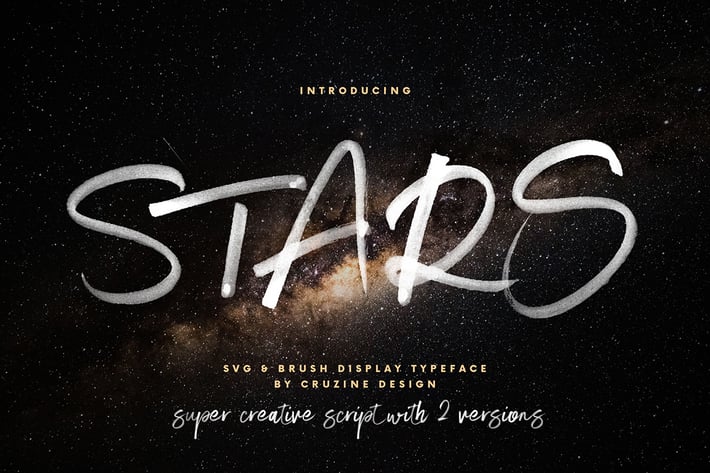
Stars Brush & SVG Font
Brush, rough or grunge style script display font for your new projects. Handwritten with rough marker. Great for grunge, urban or artistic projects!